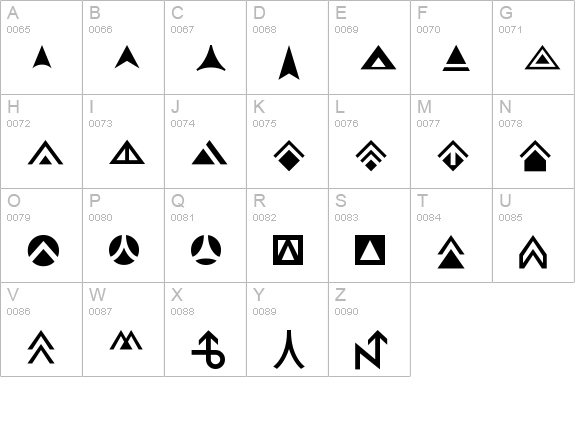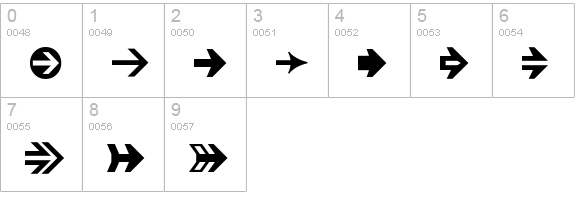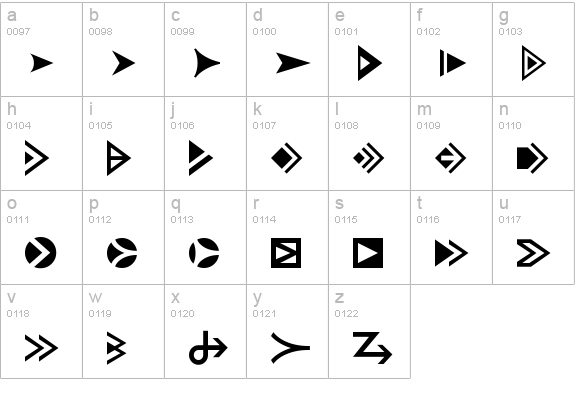
Pointers Font Details
Pointers font is a sleek and modern typeface that exudes sophistication and professionalism. With its clean lines and sharp angles, Pointers is perfect for a wide range of design projects, from branding to editorial layouts. This versatile font is sure to make your text stand out and grab the attention of your audience. What makes Pointers font even more appealing is that it is completely free to download at FontsMarket.com. Yes, you heard it right - you can get your hands on this stylish font without spending a penny. So why wait? Enhance your designs with Pointers font today and elevate your projects to the next level of excellence.